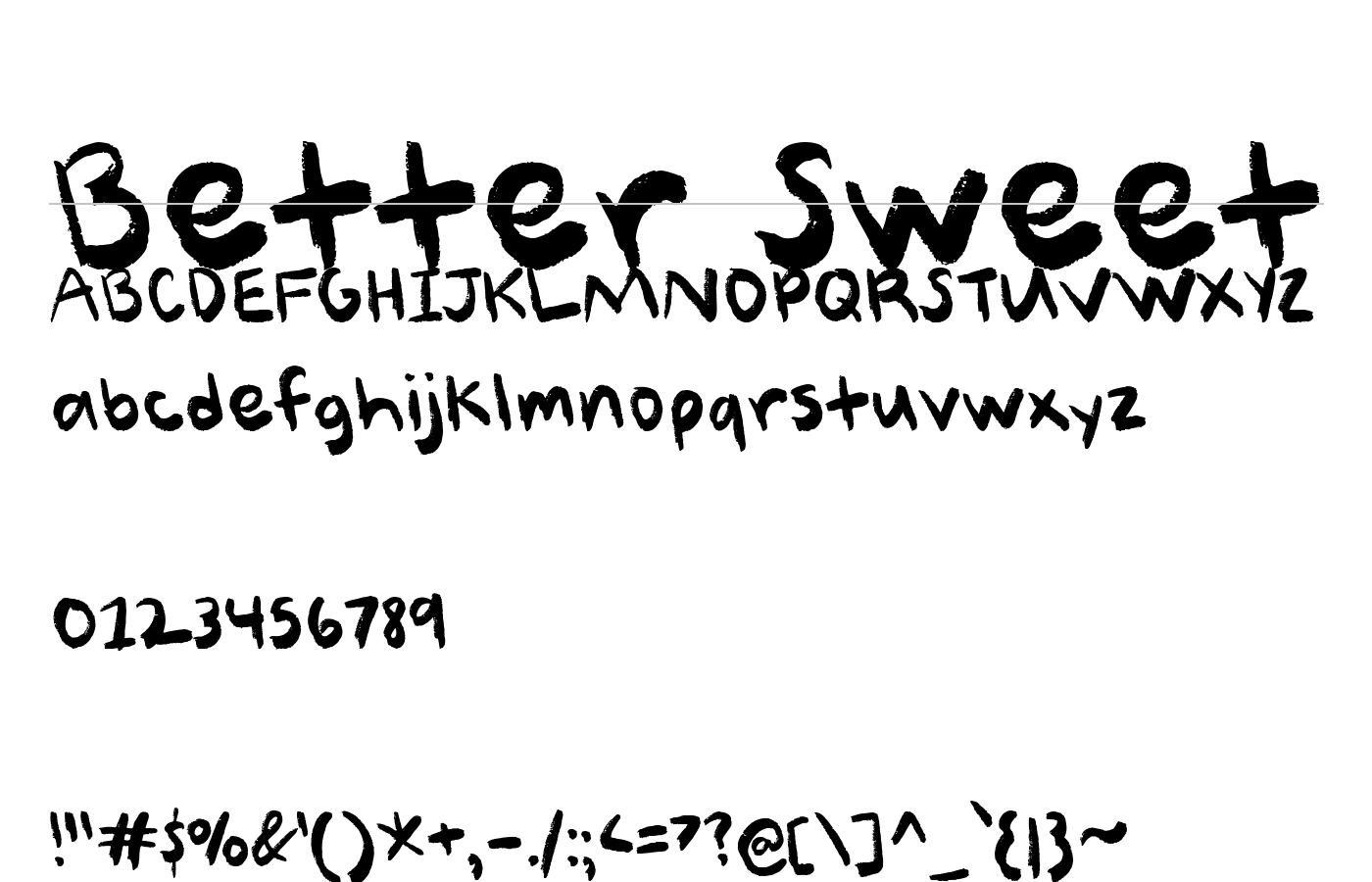
Better Sweet is a playful, hand-drawn sans serif font with an informal, brushstroke texture that gives it a lively, handcrafted feel. Its irregular shapes and rough edges make it perfect for creative, casual designs that want to convey warmth and personality, ideal for children's products, party invitations, or artistic branding. This font shines in headlines, logos, and packaging where a fun, approachable vibe is needed.
Better Sweet Font
About Better Sweet Font
| Font family | Better Sweet Font |
| Designer | Misti's Fonts |